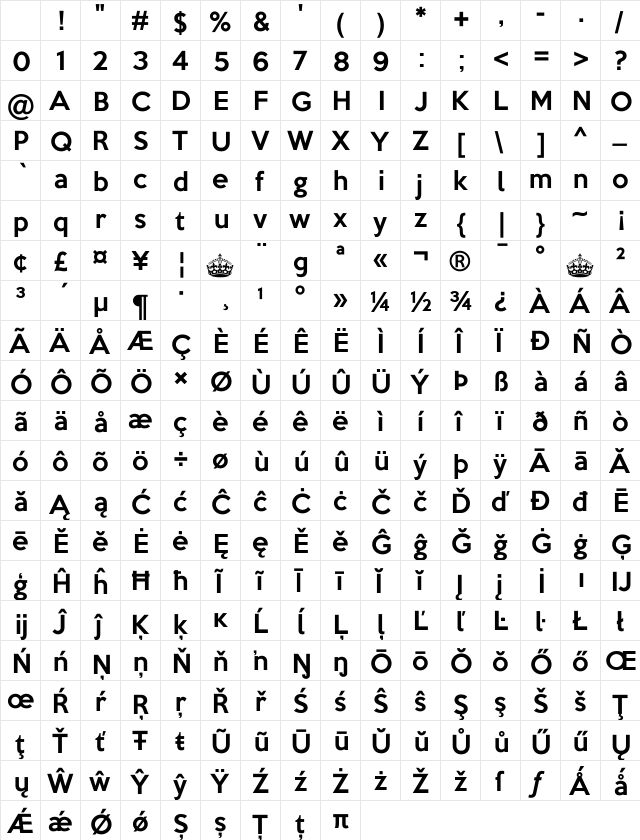
Keep Calm Medium is a composed and adaptable typeface that performs quietly and consistently across a wide range of design contexts.
Pro Tip: Use Keep Calm Medium in both headline and body roles to test its range before committing to a single application.